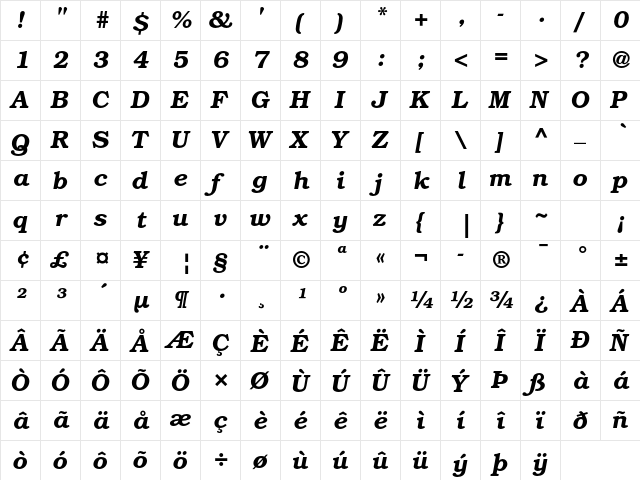
ITC Bookman Std Demi Italic Font Preview
ITC Bookman Std Demi Italic
ITC Bookman Std Demi Italic Font Details
| Style | Demi Italic |
| Designer | Ed Benguiat |
Design Context for ITC Bookman Std Typeface
ITC Bookman Std takes a measured approach to typography — its balanced proportions and neutral character make it a reliable workhorse for both digital and print work. The dynamic lean of this cut emphasises speed and emphasis in any layout.
Pro Tip: Use ITC Bookman Std for emphasis, pull quotes, and subheadings where its slanted energy can add rhythm to the layout.